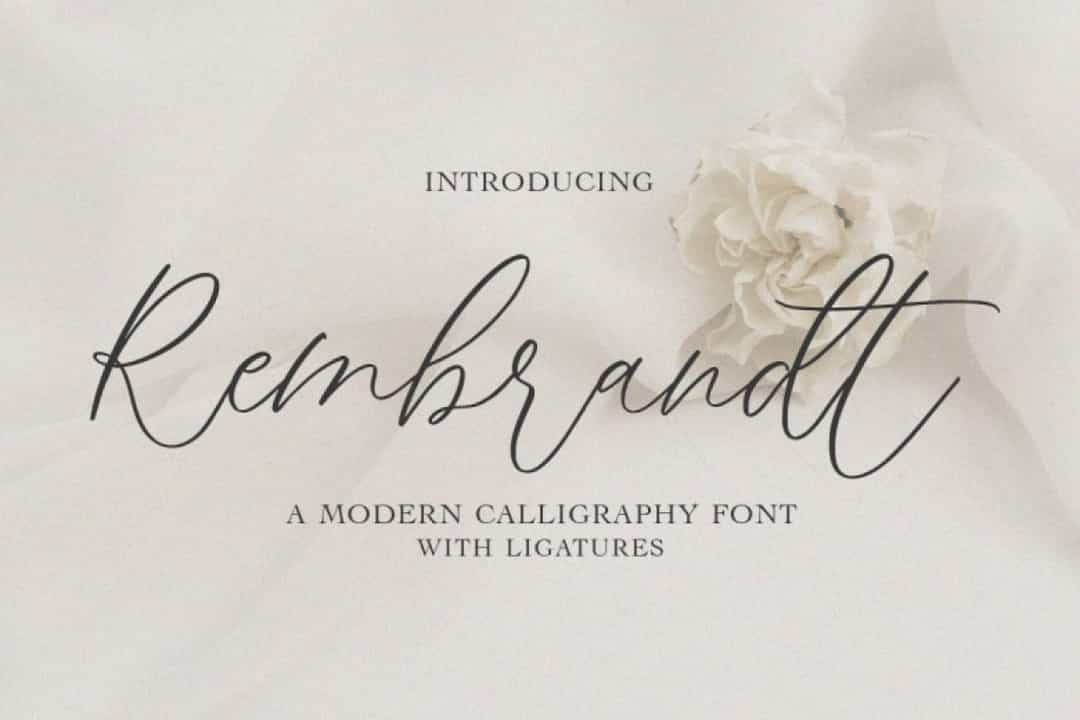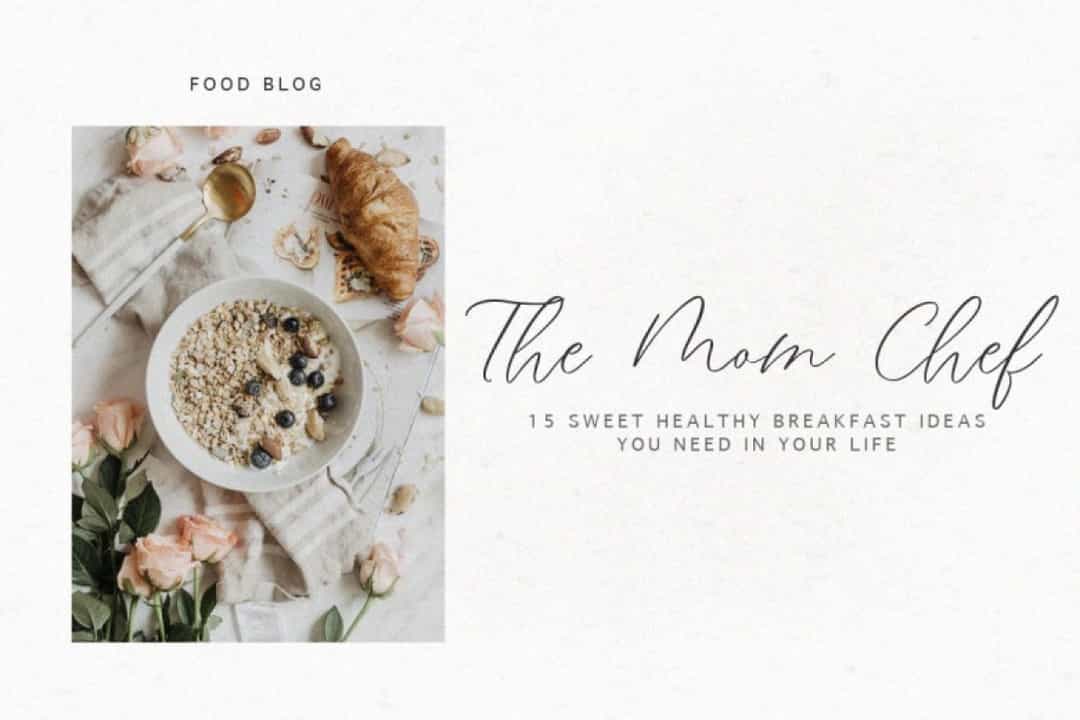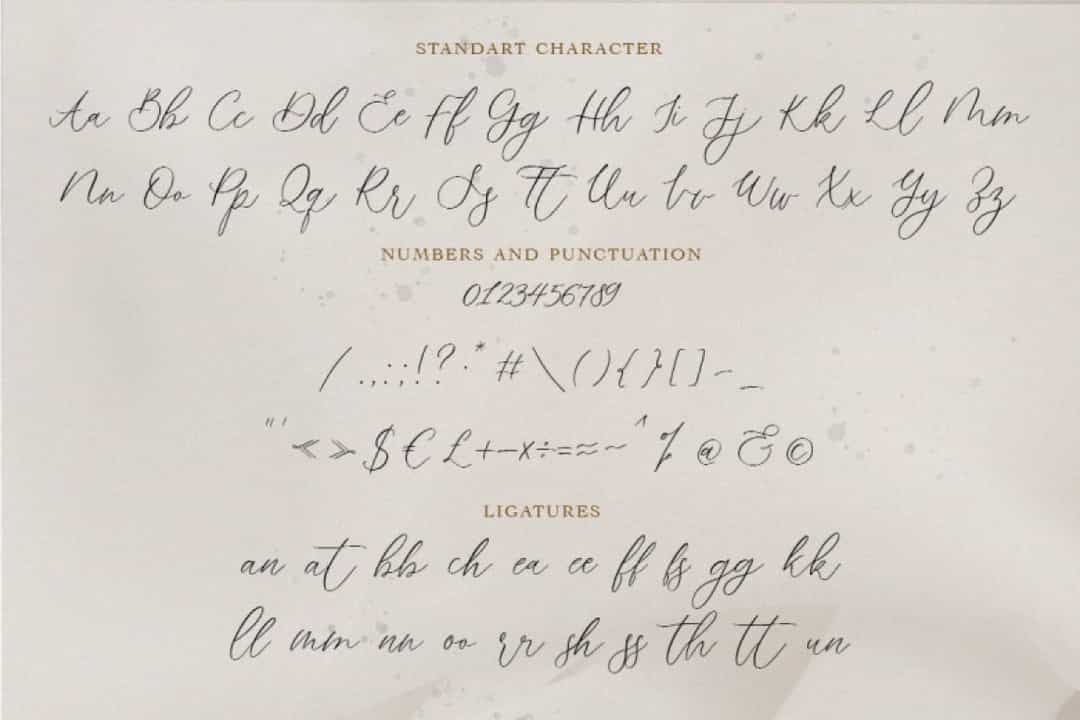
Rembrandt Handwritten Font is an engaging modern script typeface with a relaxing aesthetic, boasting stunning looks and textures with impressive impact across any topic or context. An incredible addition to your font library.